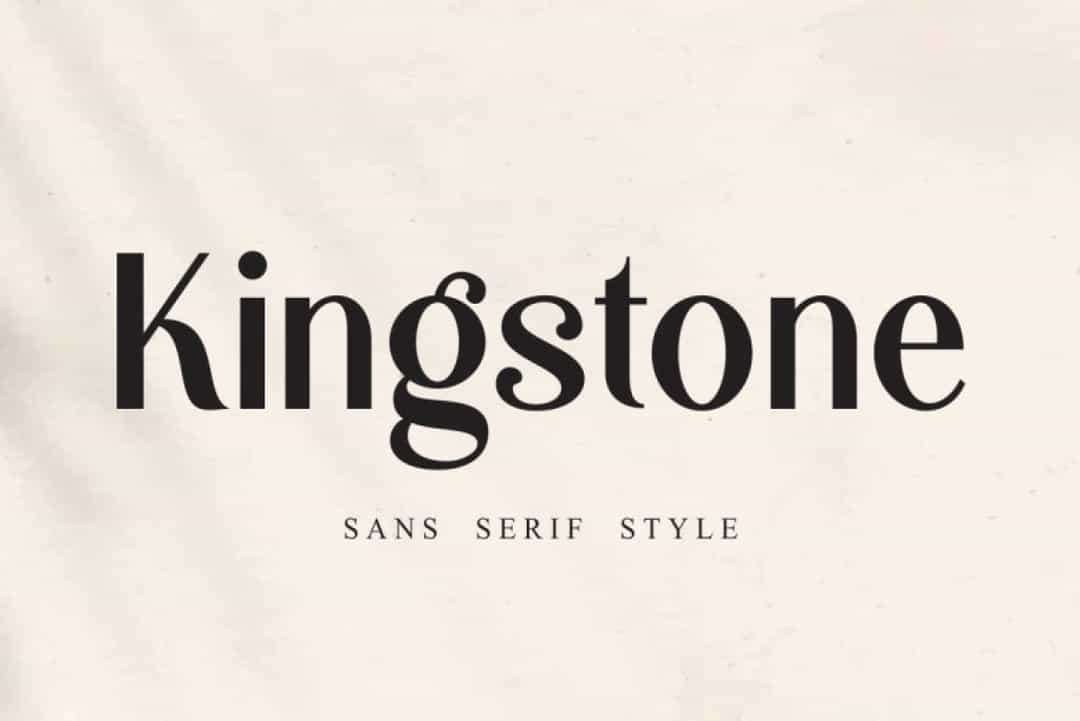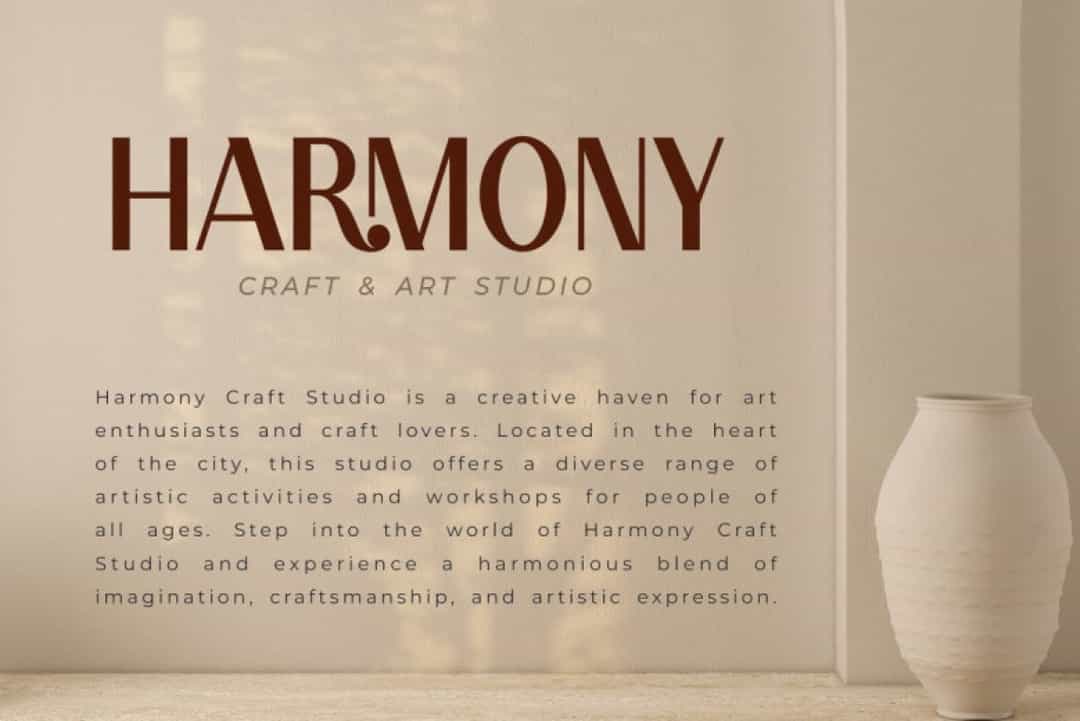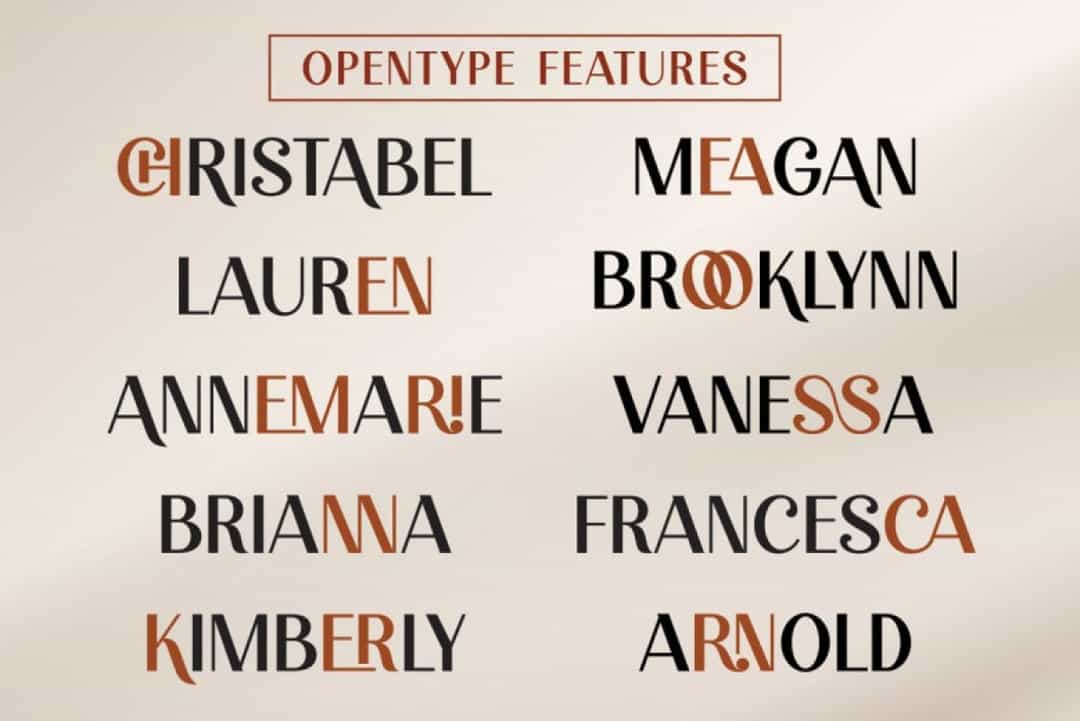
“Kingstone Sans” is an exquisite font which exudes power, elegance, and timeless grace. Boasting strong features that stand out in design projects, “Kingstone Sans” will surely leave a mark in any of your creations – let it rule over your designs with grace!